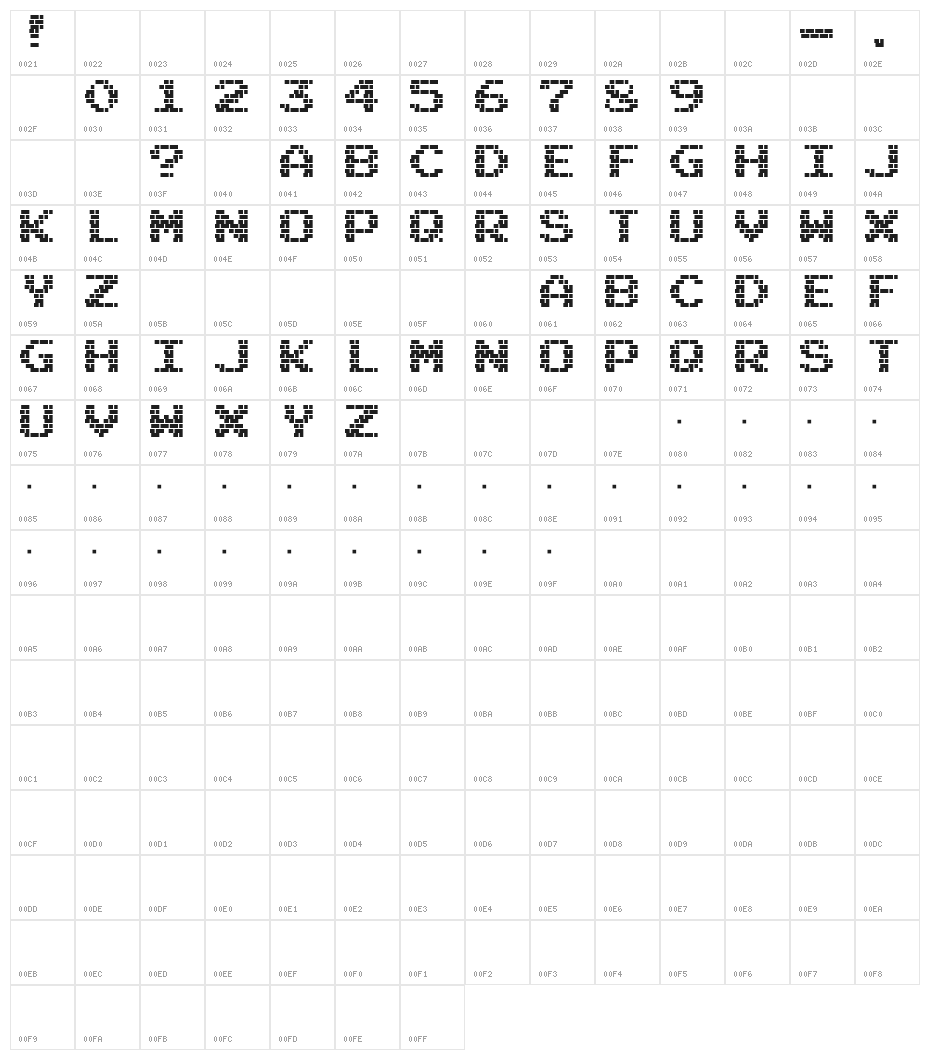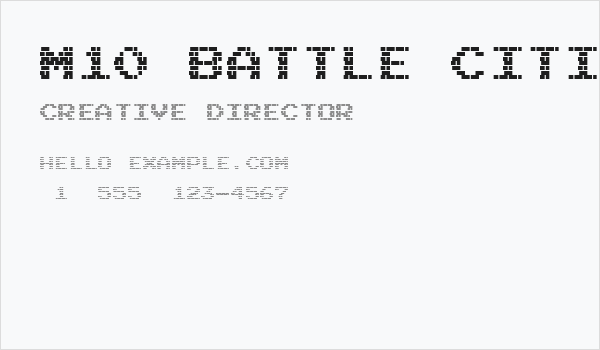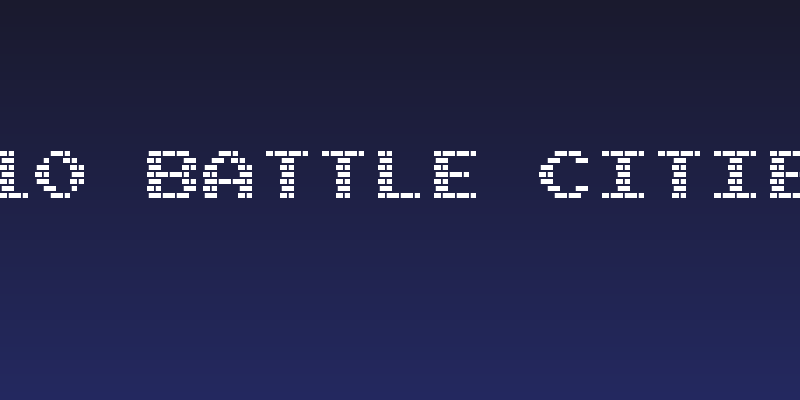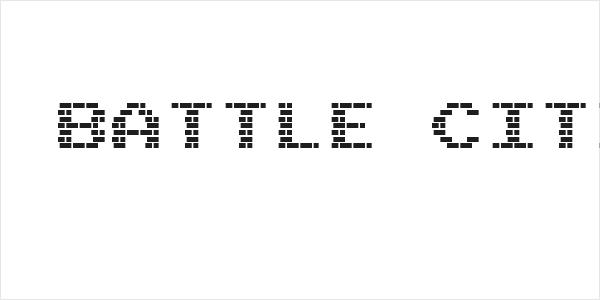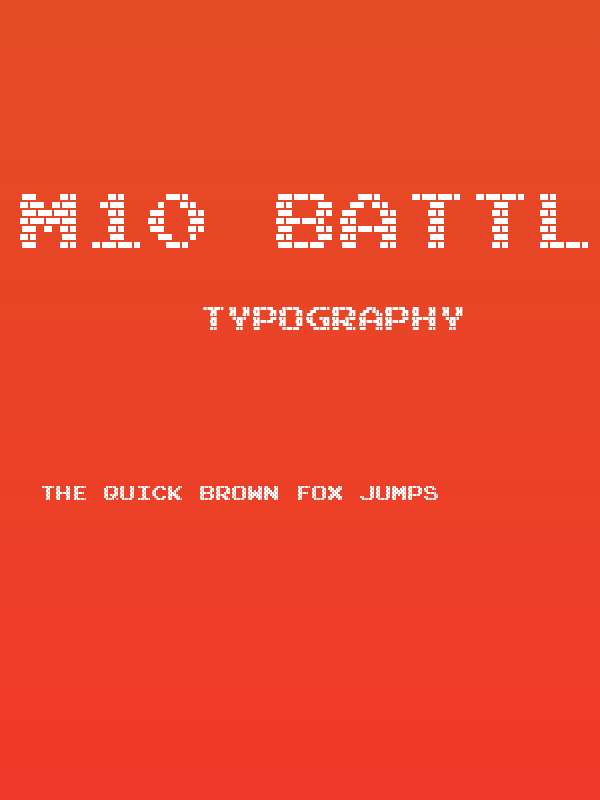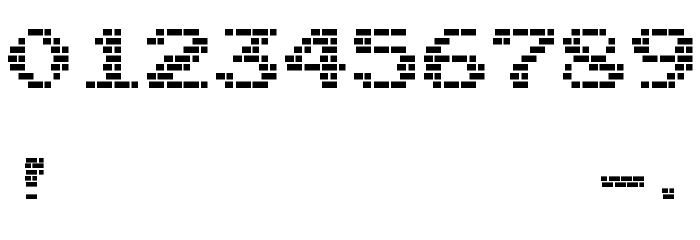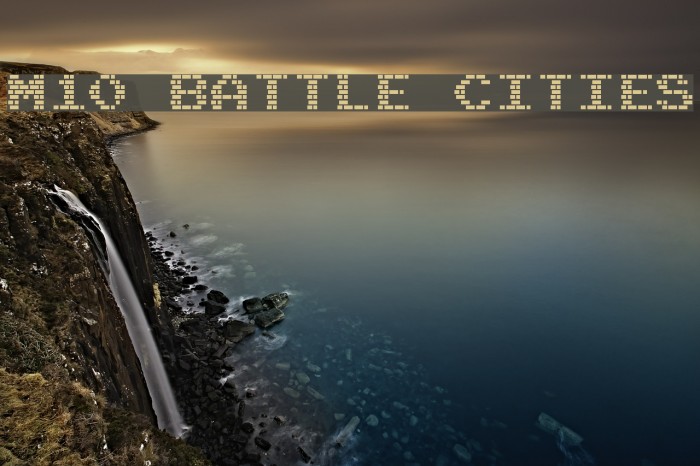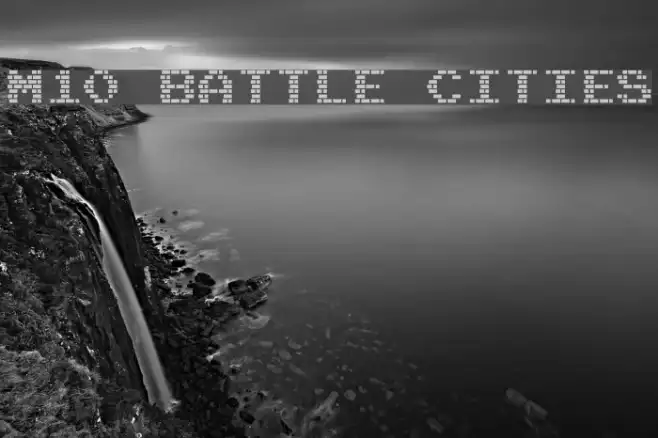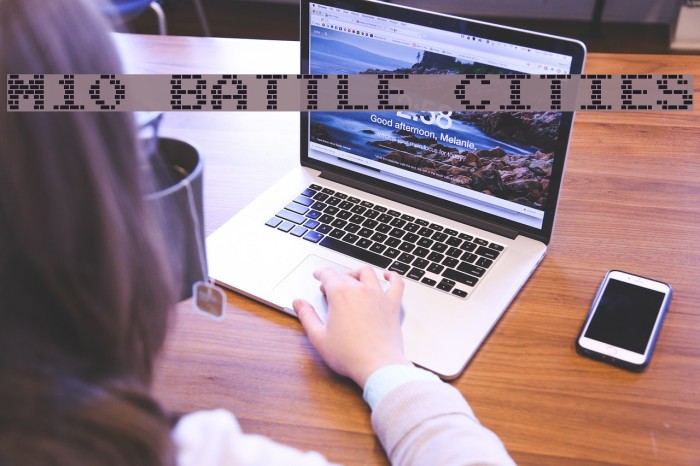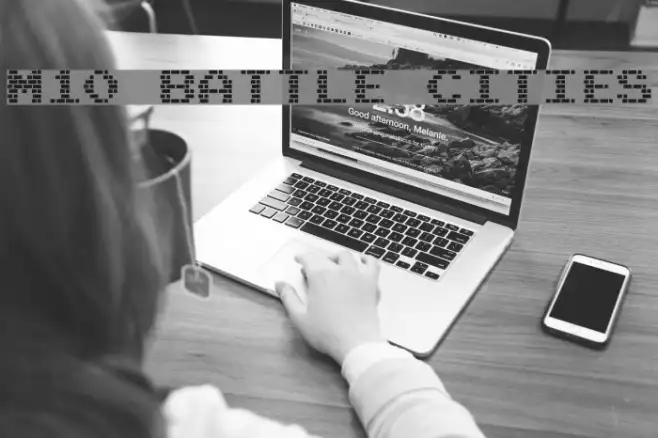
M10_BATTLE CITIES Font
M10_BATTLE CITIES Description
This font features a distinct pixelated design, reminiscent of classic video game graphics. Each character is composed of small, evenly spaced squares, creating a digital, retro aesthetic. The uppercase and lowercase letters maintain a consistent blocky appearance, while the numbers and special characters follow the same pixelated style. This font's unique structure makes it ideal for projects that aim to evoke nostalgia or a technological theme. The uniformity in the design ensures readability while maintaining its decorative appeal.
| Proposed Projects | Ideal for video game design, retro-themed posters, digital art projects, and tech-related branding. |